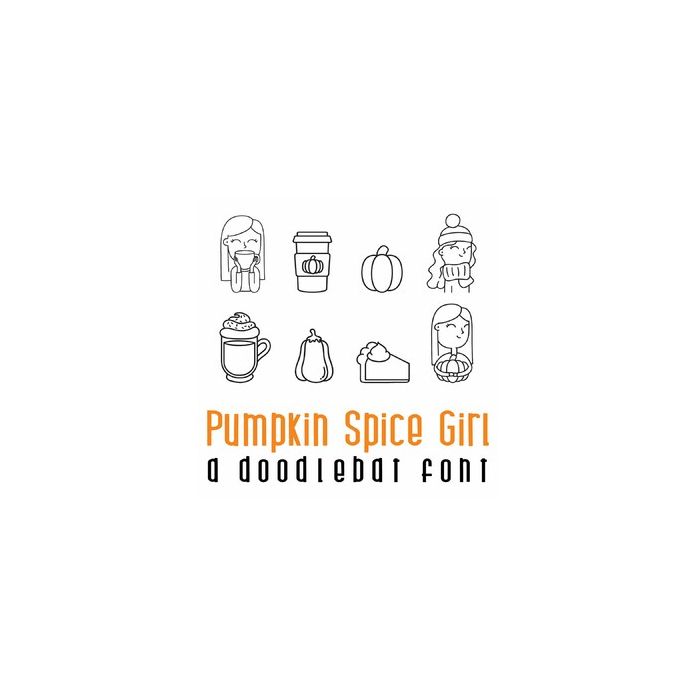
This fun doodlebat font features 26 adorable Fall themed imagery. Perfect for Pumpkin Spice lovers and to create adorable cards, gifts, decor, crafts, scrap book pages, planner stickers and more!